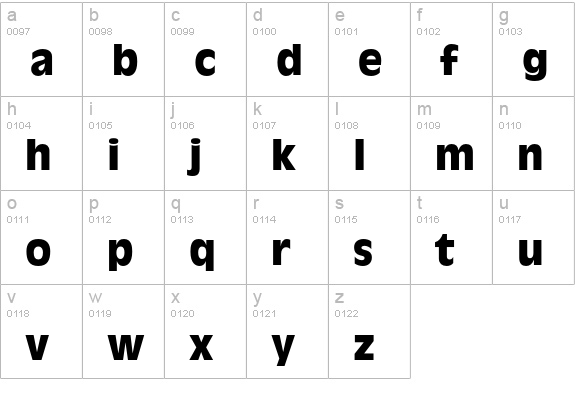
Antique Olive Std Black Font Details
Antique Olive Std Black is a maximum-weight, dramatic variant in the Antique typeface family \xE2\x80\x94 well suited to maximum-impact headlines, posters, and packaging.
Antique Olive Std Black is a timeless and sophisticated font that exudes elegance and charm. With its bold and striking appearance, this font commands attention and makes a powerful statement. The unique design of Antique Olive Std Black sets it apart from other fonts, making it perfect for projects that require a touch of vintage flair. The best part? Antique Olive Std Black is available for free download at FontsMarket.com. Now you can add a touch of classic style to your designs without breaking the bank. Whether you're creating invitations, posters, or branding materials, Antique Olive Std Black is sure to make a lasting impression. Don't miss out on this opportunity to enhance your projects with the beauty of Antique Olive Std Black. Download it for free today and elevate your designs to the next level.